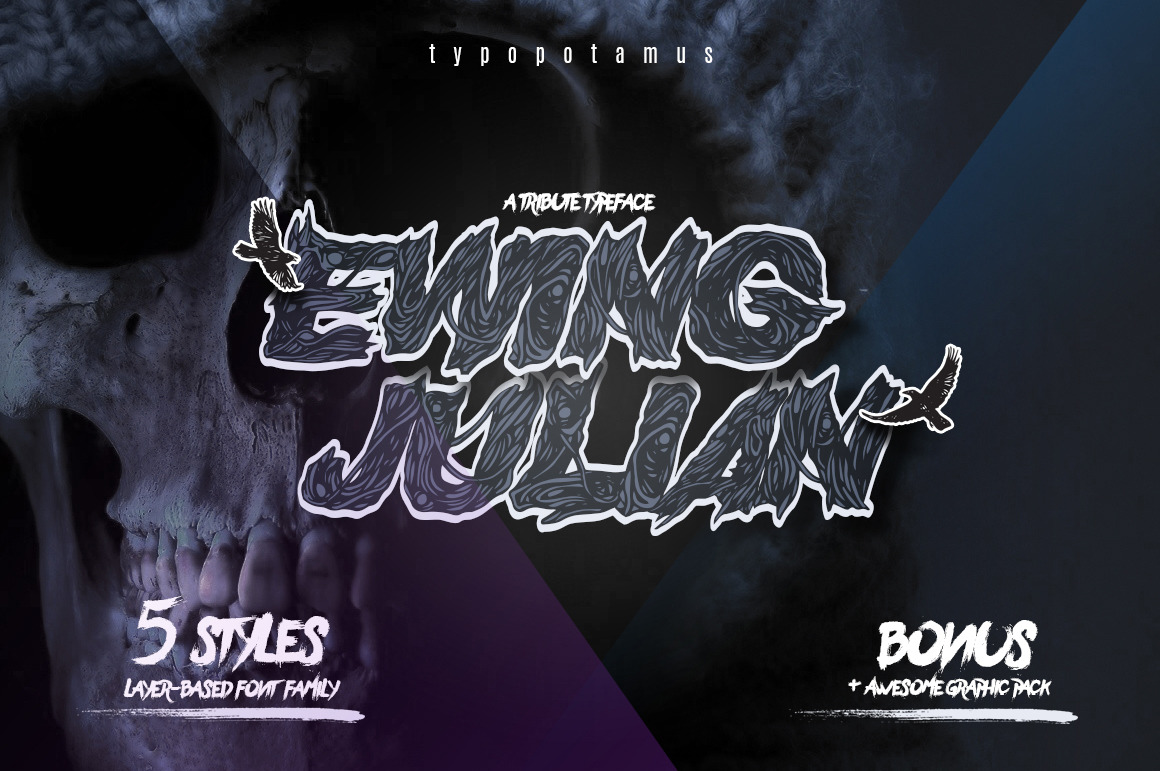
Ewing Julian - Layered Typeface
Ewing Julian is a 100% handmade typeface. With 5 styles which complete each other, give you a professional horror design. Complete lower-case and upper-case alphabet with some punctuation and symbols . Also bonus graphic pack to make your design even more awesome.
This typeface was inspired and dedicated to my zombie and horror lover friend who passed away in a terrible accident. Rest in peace and best prays for him.
The typeface is great for :
- band logo
- invitations
- quotes
- headings
- movie title
- t-shirt
- signage
- labels
- posters
- etc.